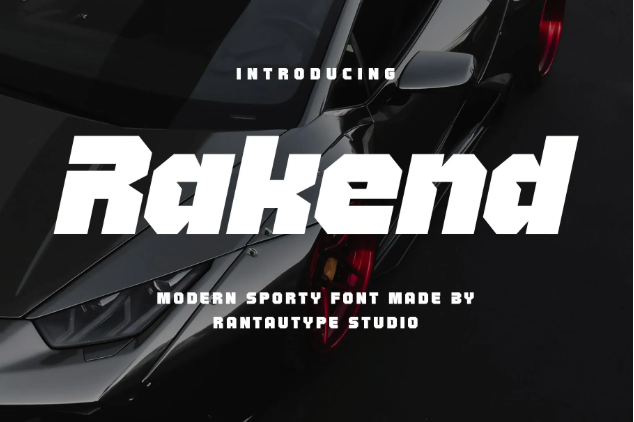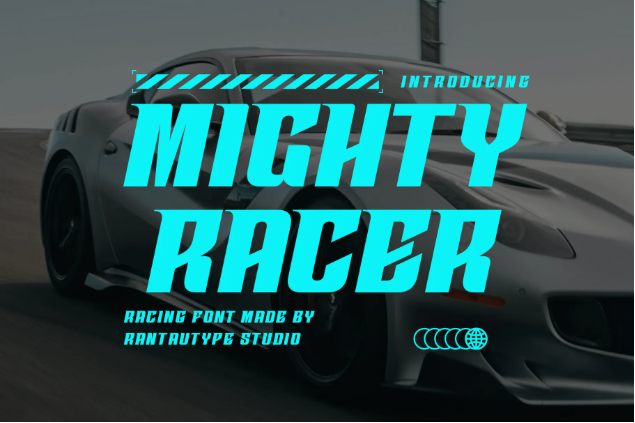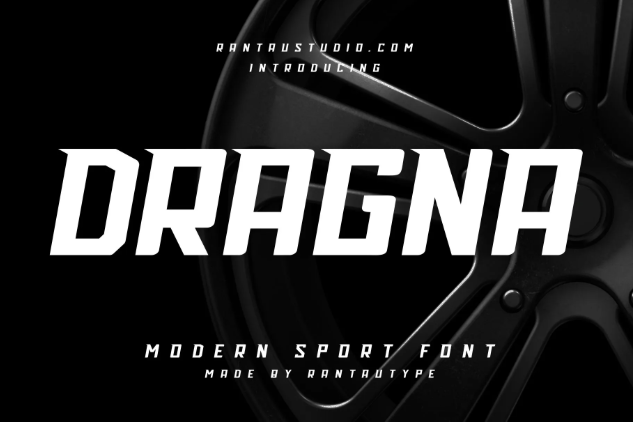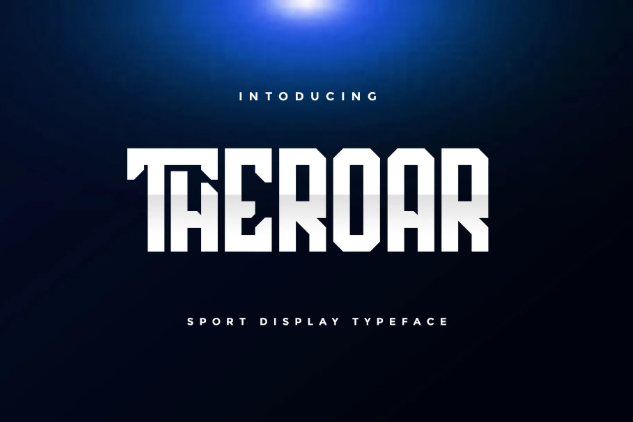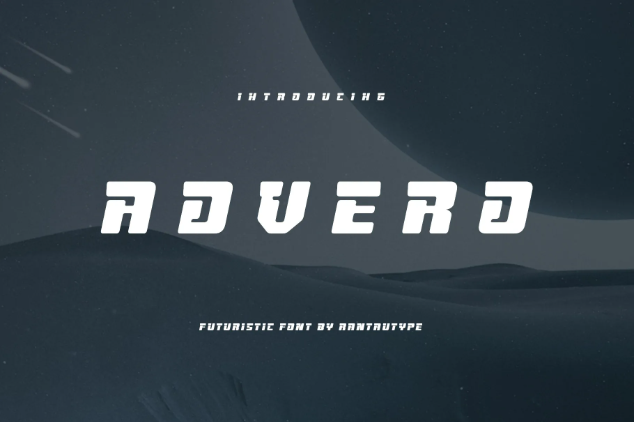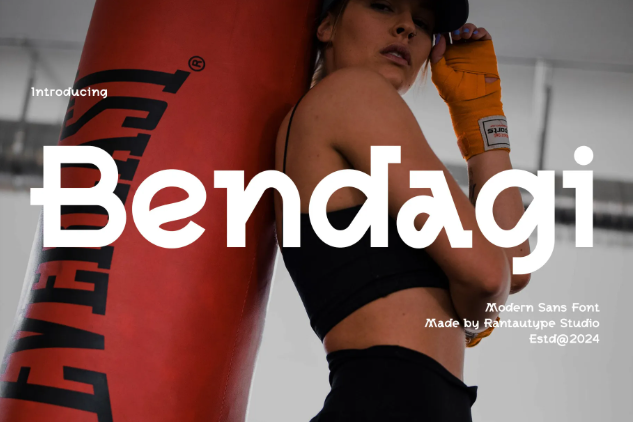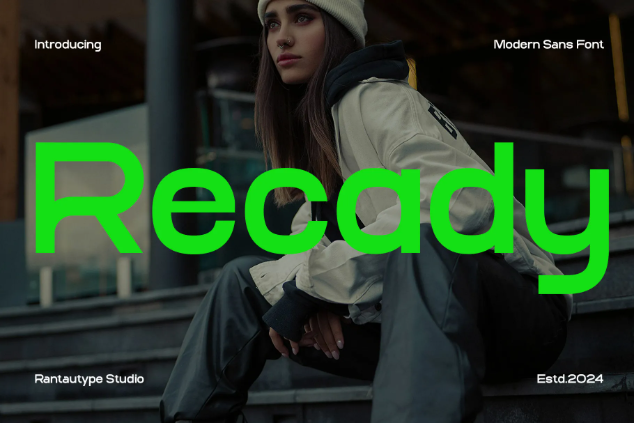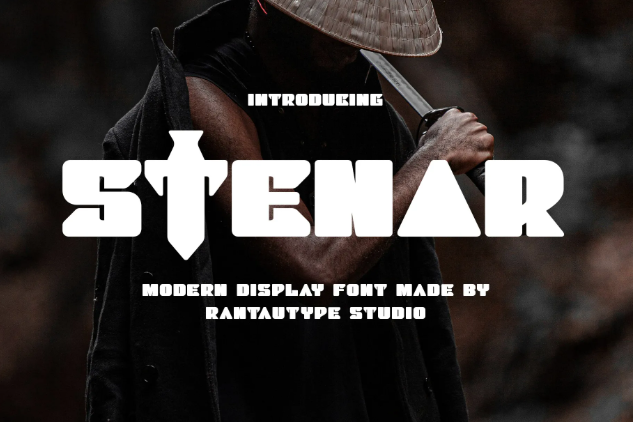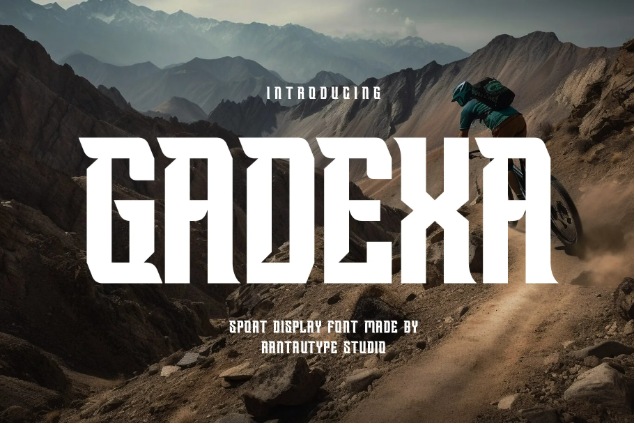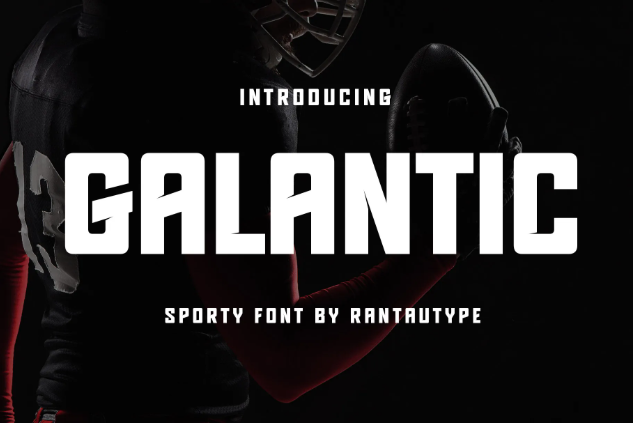
Fonts for Basketball Jerseys with A Bold, New Edge
Fonts for basketball jerseys are more than flair; they’re a bold statement of team identity that reflects their core energy, strength, and unity. Choosing the right font for your jersey is crucial, even turning simple jersey designs into a recognizable emblem.
Powerful Fonts for Basketball Jerseys to Define the Team’s Identity
From vintage varsity lettering to sleek modern styles, these sporty fonts are exceptional in creating a lasting impression in your jerseys, especially basketball jerseys. Let’s check what font is used for basketball jerseys!
1. Rakend
With jersey design in mind, Rakend is a balanced option. Rakend uses bold, thick lines and angular design that enhances legibility, even from a distance.
2. Kardige
Kardige is a bit over the top for jersey design because this gorgeous typeface is best suited for memorable logo designs with its mix of geometric and curved lines.
3. Bravo Team
Bravo Team is among the best fonts for basketball with its blocky, serif style. Inspired by retro sport typefaces, Bravo Team is guaranteed to scream your statement louder.
4. Roxbe
Roxbe can instantly take your jersey design into the future with its unique letterforms. Using wide and hexagonal characters, Roxbe brings a new type to represent movement.
5. Gadexa
Gadexa is at the top of the best fonts for basketball jerseys with its tall, elegant letters and wing-like flairs signaling the flying element in the sport.
6. Ronesa
Ronesa cleverly combines squared letterforms with rounded edges, maintaining a sense of authority while adding fluid expression.
7. Galantic
Galantic is a staple for basketball jerseys. Its sporty and retro concept, combined with futuristic touches, creates unique and subtle new details to the typical sport style.
8. Galecy
Galecy is a master at legibility. Utilizing extreme stroke contrast, Galecy also brings a strong and immovable persona to your designs.
9. Defront
Defront is a stencil typeface with military-inspired visuals that makes a perfect tool to evoke a strong vibe for your team’s impression.
10. Mighty Racer
As the name suggests, Mighty Racer is the perfect font to display a quick and strong impression, especially if you use the slanted option.
11. Dragna
Despite its obvious strong look, Dragna also represents a fluid and precise motion. Dragna’s little serif also adds to this sporty element you need.
12. Theroar
Theroar depicts a different approach among sporty fonts. Its bold and tall letterforms better represent Theroar’s calm and strategic look.
13. Rush Driver
Rush Driver is best suited to represent the violent and rough characters. If you’re team uses these plays, then Rush Driver is the perfect font on your jersey.
14. Advero
On top of its futuristic look, Advero’s letterforms also hint at comical elements. From its curved edges to its compact stature, Advero is a wholesome typeface look.
15. Outerion
Outerion is the best font for basketball jerseys when you aim for alien, strategic plays, which is best represented by its precise yet unexpected cuts.
16. Best Racer
From its bold strokes, winged serif, to its little protruding detail all over its glyphs, contributes to Best Racer’s powerful and unstoppable aura.
17. Elsone
Among our fonts for basketball jerseys, Elsone bridges simplicity and futuristic vibes. Elsone’s spacious letters fulfill the necessity to be eye-catching without overwhelming.
18. Resond
If you’re aiming for a cyberpunk-style typeface with highly decorated letterforms, use Resond. Resond’s hexagonal letters and intricate cuts instantly create a memorable impression.
19. Bendagi
With Bendagi as your jersey font, you can evoke a fresh and youthful persona. Bendagi tends to bend unexpectedly while keeping the precise, angular visual.
20. Recady
Recady represents the clean, familiar look of a sans serif font while adding occasional curvy details that take you by surprise.